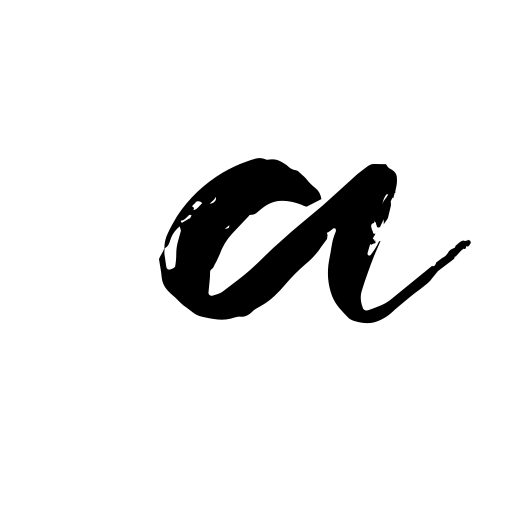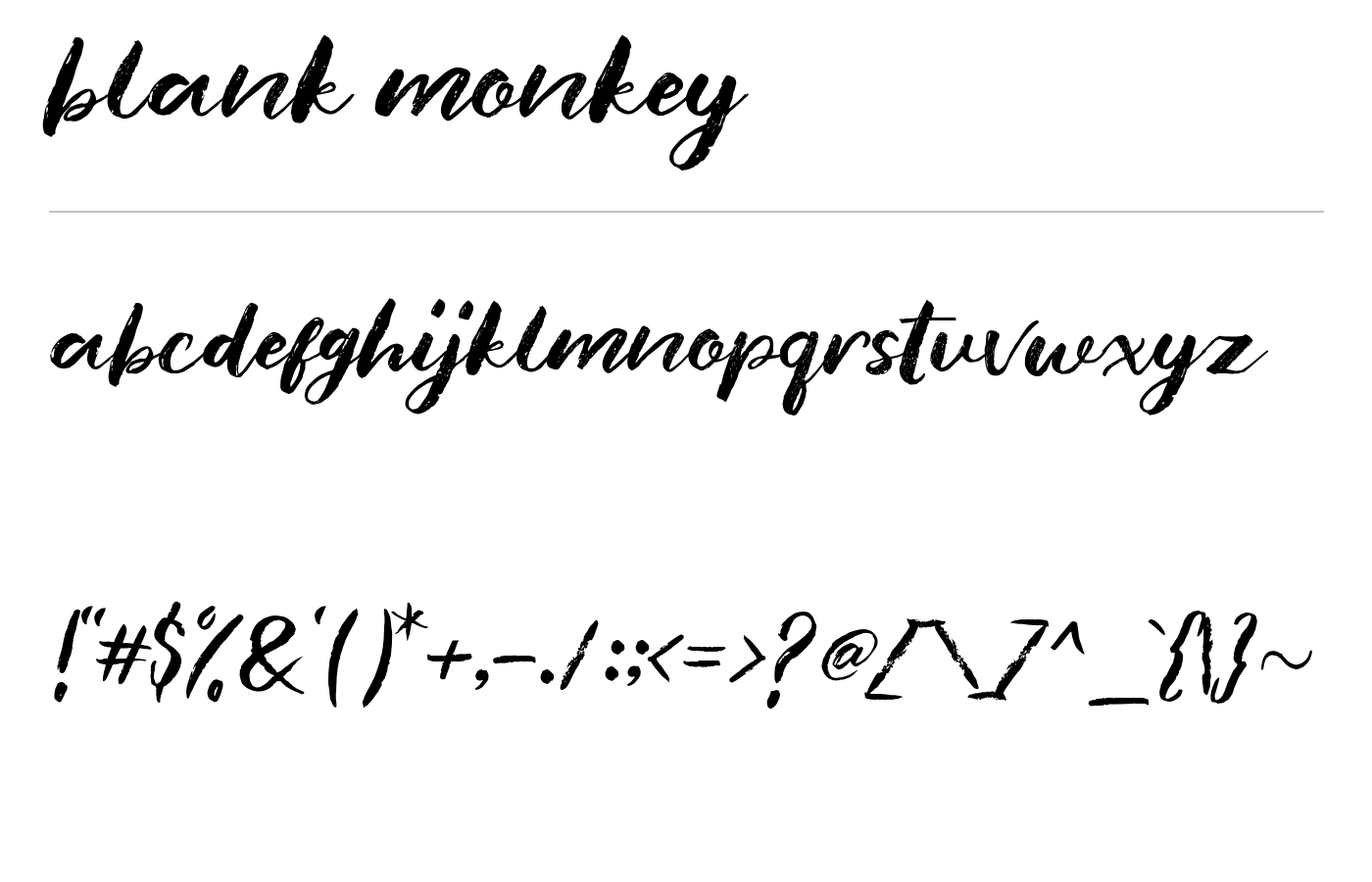
Blank Monkey is a lively and expressive script font that mimics a natural brush lettering style with textured strokes and a casual, handwritten feel. Its medium weight and irregular shapes give it a playful yet approachable personality, making it ideal for creative projects, invitations, and branding that seek a personal, artistic touch. This font works best in headlines or display settings where its energetic character can shine and add a unique, handcrafted vibe.
blank monkey Font
About blank monkey Font
| Designer | Vero Studio |